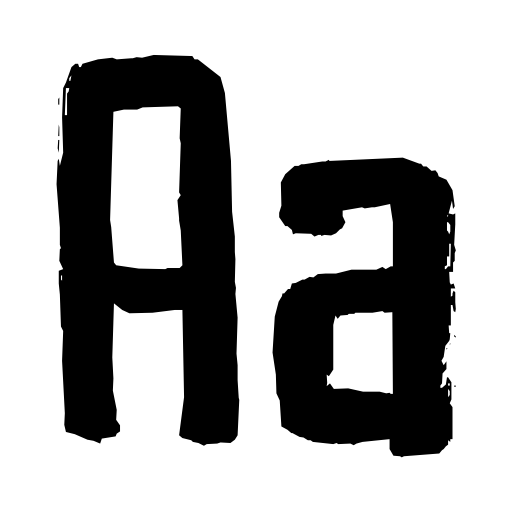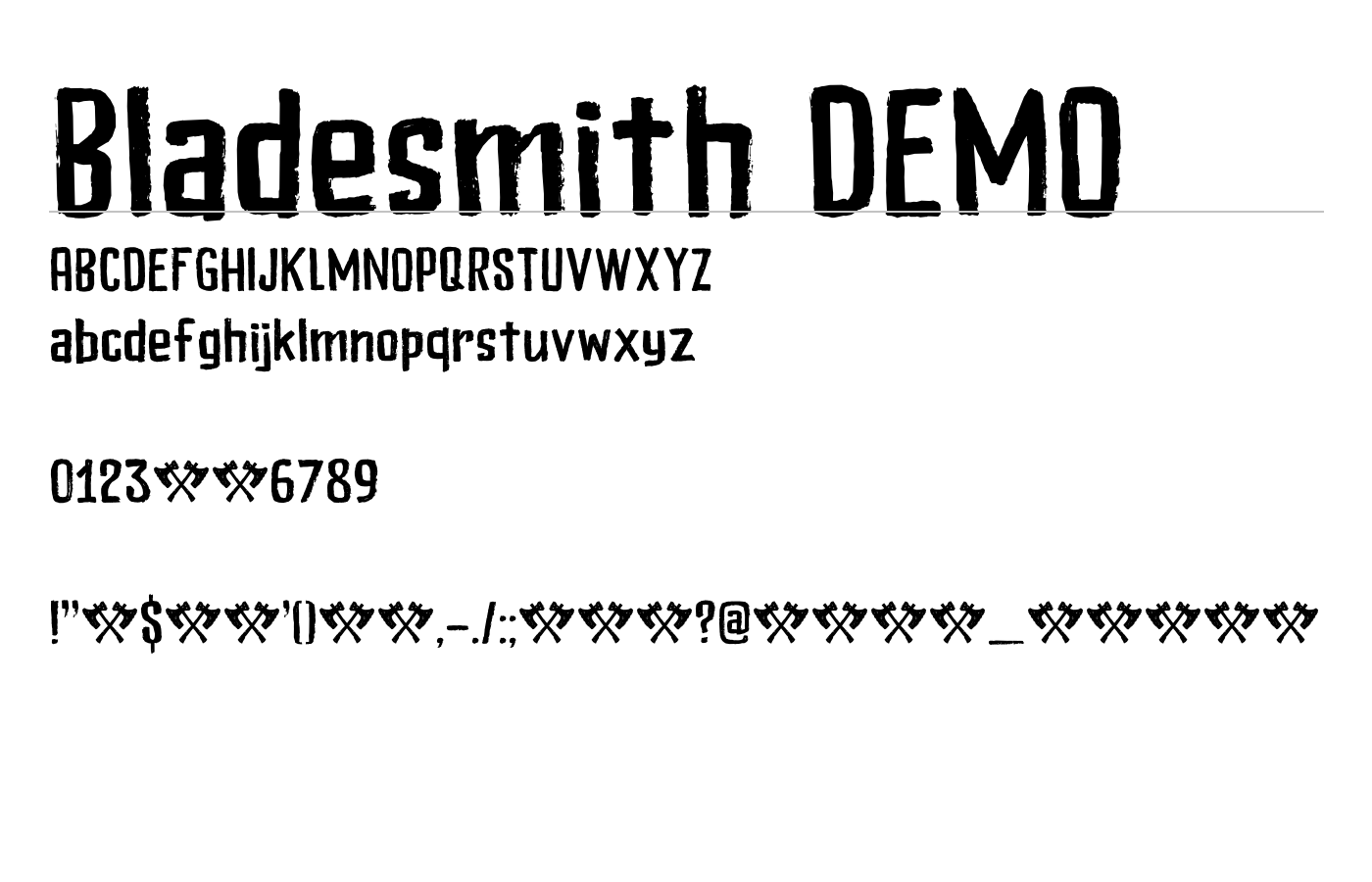
Bladesmith DEMO is a bold, narrow sans serif font with a rough, textured look that feels handcrafted and edgy. Its tall, slightly irregular letterforms and single-story lowercase characters give it a raw yet modern vibe, perfect for designs that want to convey strength and authenticity. This font works well in posters, branding, and headlines where a strong, rugged personality is needed.
Bladesmith DEMO Font
About Bladesmith DEMO Font
| Font family | Bladesmith DEMO Font |